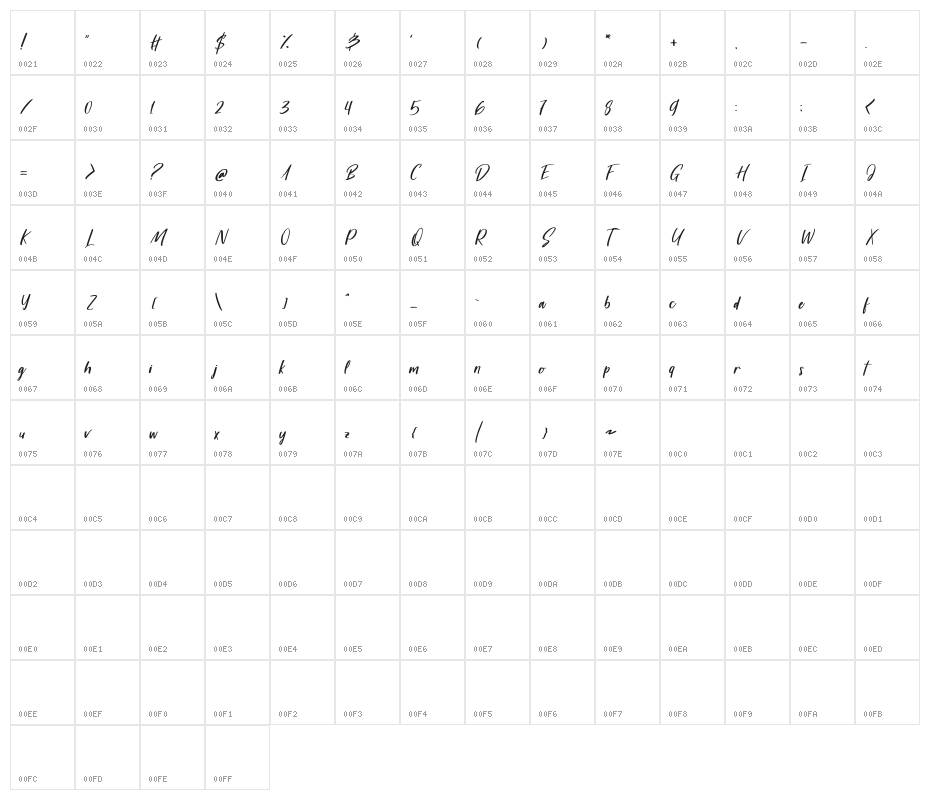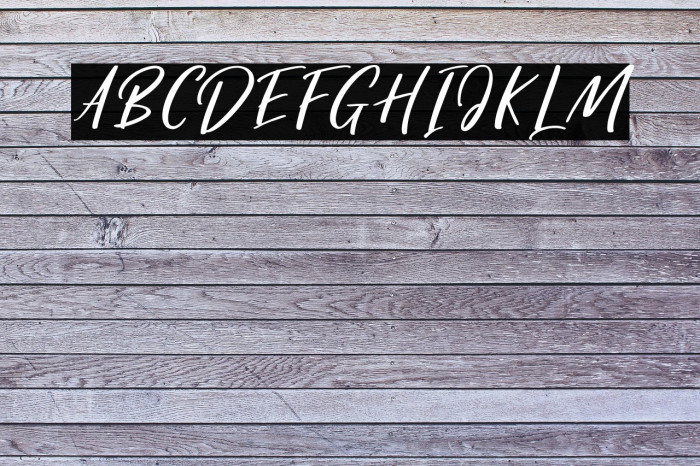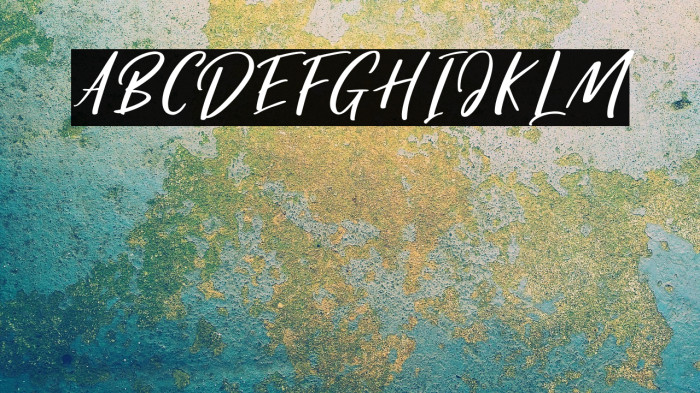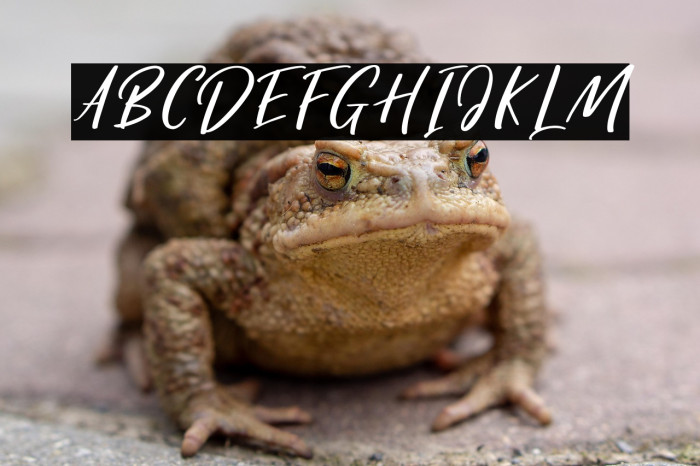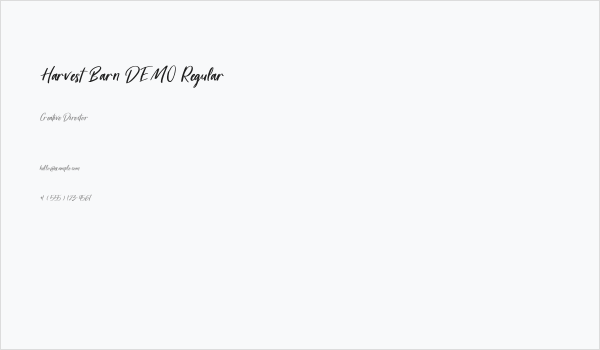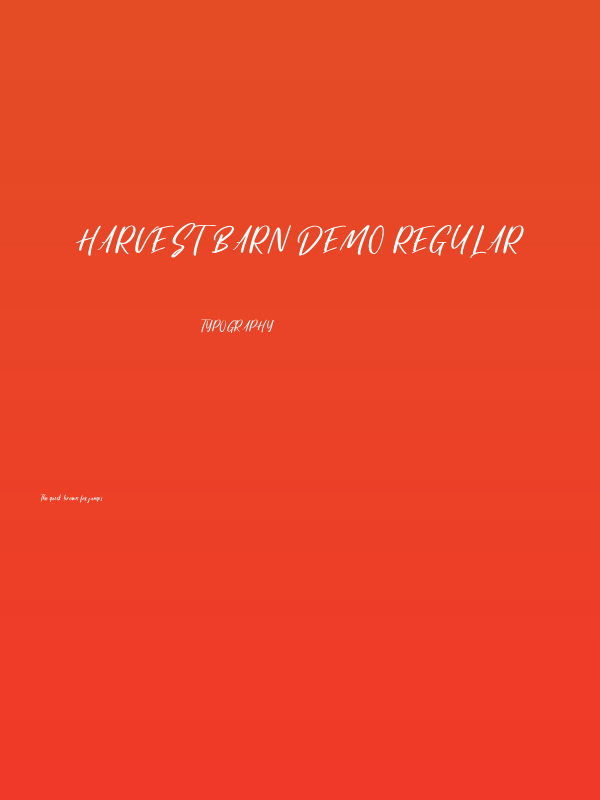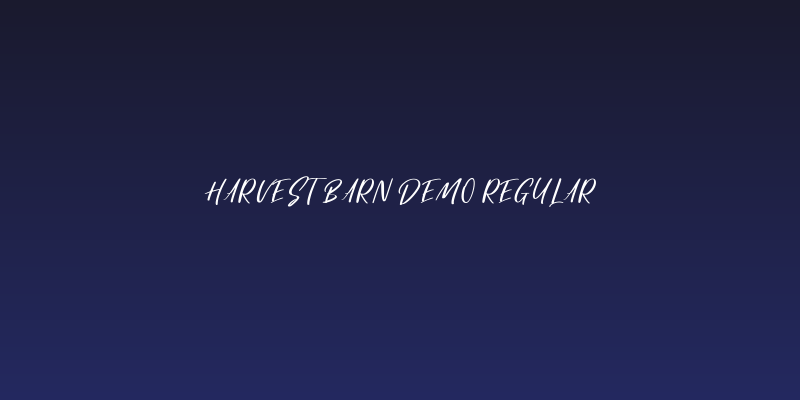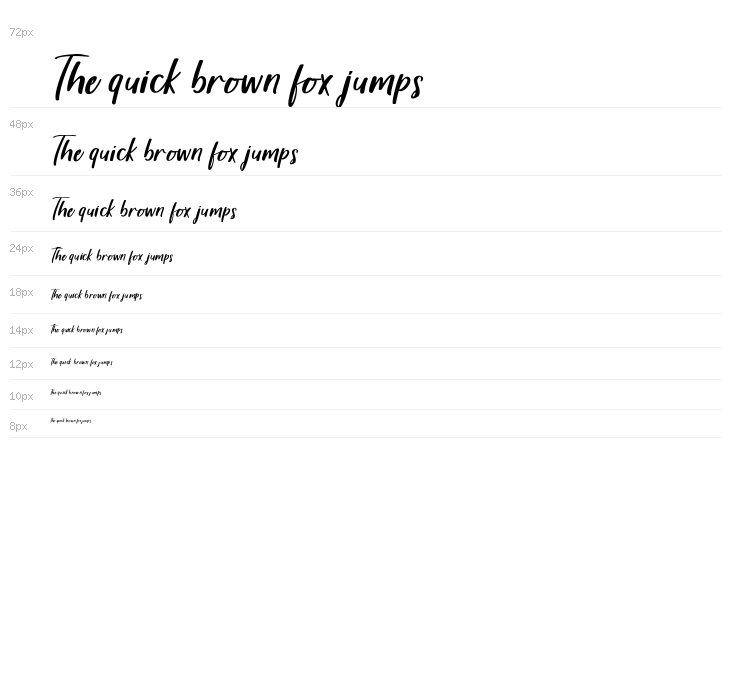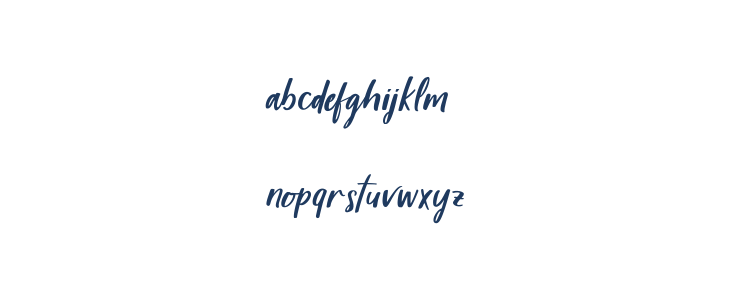
Harvest Barn DEMO Regular Font
Harvest Barn DEMO Regular Description
This font features a dynamic and flowing script style, characterized by its elegant and slightly slanted letterforms. The strokes are smooth and fluid, giving it a handwritten appearance that is both casual and sophisticated. The uppercase letters are bold and prominent, while the lowercase letters maintain a consistent flow, enhancing readability. The numerals are clear and distinct, matching the overall style of the alphabet. Special characters are well-integrated, maintaining the font's cohesive look. This font is perfect for projects that require a personal touch, such as invitations, greeting cards, or branding materials.